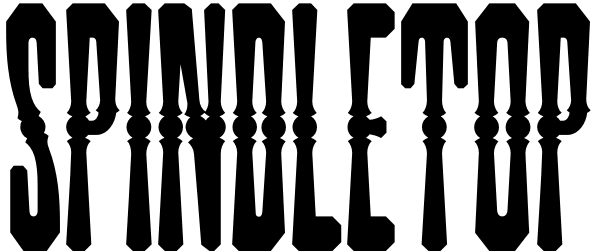
Spindletop NF
One in the series of fonts called Whiz-Bang Wood Type, intended to be set large and tight. Spindletop’s ultra-condensed letterforms allow a lot of information to be packed into little horizontal space. Named for a famous East Texas oil field that...